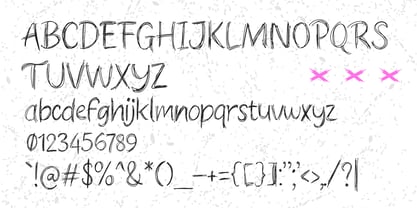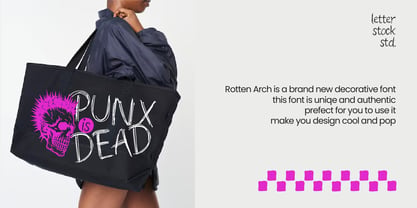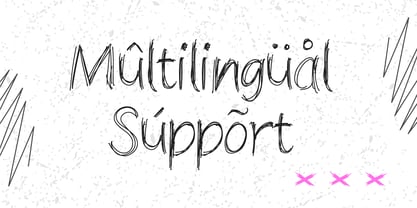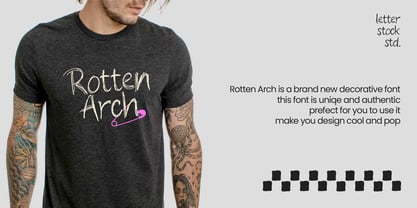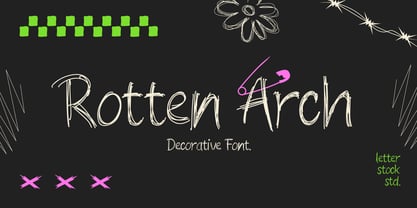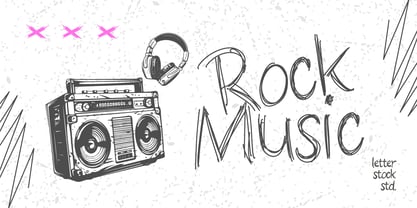
Rotten arch
by LetterStock
The Rotten arch Font Family was designed by Studio LetterStock and published by LetterStock. Rotten arch contains 1 styles. More about this family
Rotten Arch is a raw decorative font with a chaotic sketch style that feels rebellious, imperfect, and unapologetically expressive. Inspired by messy hand-drawn strokes and underground punk aesthetics, this font embraces roughness, randomness, and creative disorder. With its scribbled lines and distorted forms, Rotten Arch delivers a strong visual attitude that breaks away from clean and polished typography. It’s designed for creatives who want their work to feel bold, experimental, and authentically edgy. Rotten Arch works perfectly for abstract compositions, punk-inspired visuals, grunge posters, underground music artwork, street-style graphics, and rebellious branding. The messy sketch character creates a powerful visual texture that instantly grabs attention and communicates raw creative energy. Whether you're designing album covers, edgy posters, experimental layouts, or rebellious merchandise, Rotten Arch helps your design stand out with an intentionally chaotic aesthetic. Perfect for: Punk and grunge posters Album covers & music artwork Abstract design compositions Streetwear branding Zines and underground publications Experimental typography Edgy social media graphics Creative merchandise Rotten Arch is not about perfection — it’s about attitude, freedom, and creative chaos. Let your design break the rules.